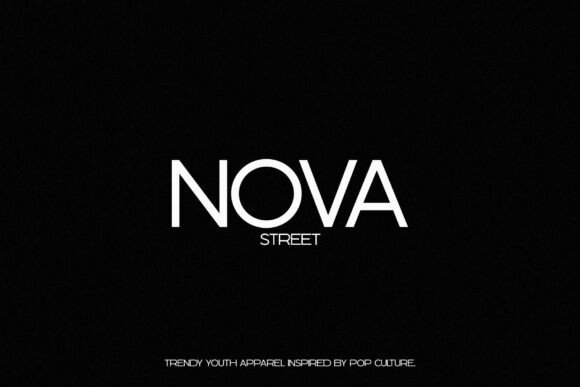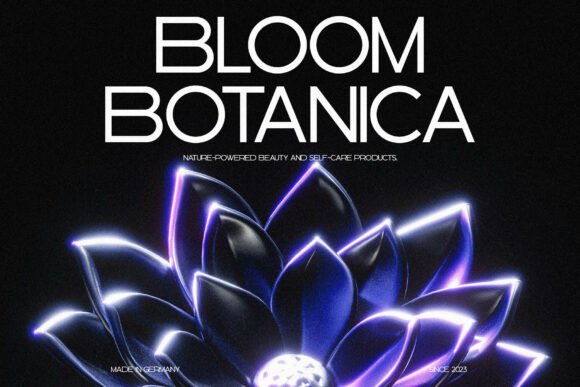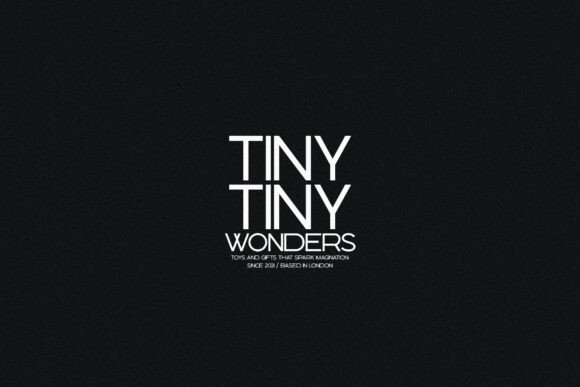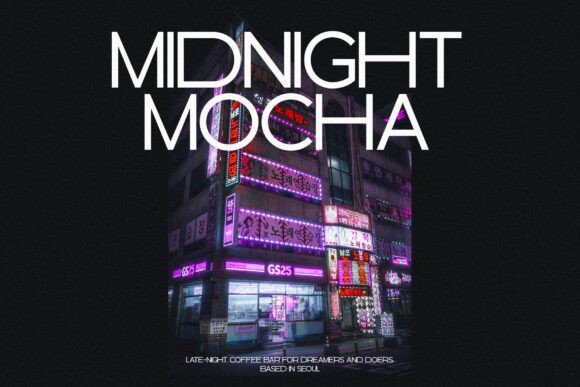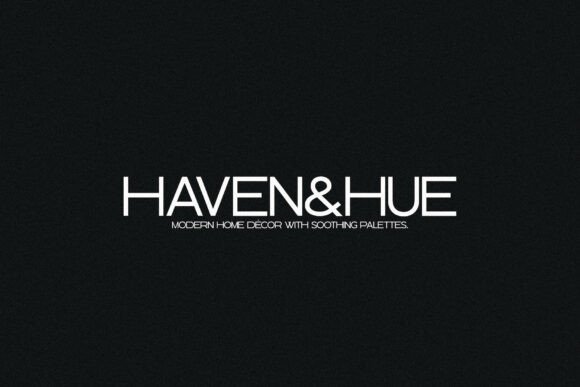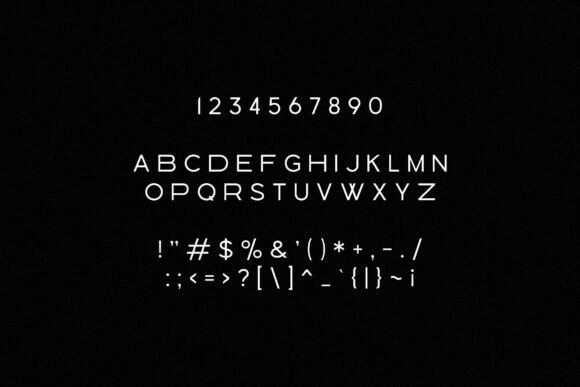
I still remember the frustration of working on a project, hours spent perfecting every detail, only to be stumped by one thing: finding the right font. My client wanted something modern, elegant, and versatile – a font that would elevate their brand without overpowering it. I scoured the internet, tried out countless fonts, but none seemed to fit the bill. That was until I stumbled upon Carbide, a game-changing sans-serif font that has since become a staple in my design toolkit.
What is Carbide?
Carbide is a modern and simple sans-serif font that combines clean geometry with subtle elegance. Designed for versatility, it maintains a refined balance between minimalism and readability, making it ideal for branding, editorial design, logos, and digital interfaces. Its smooth curves and precise letterforms give every project a contemporary, confident look while keeping the focus on clarity and visual harmony.
My Honest Review of Carbide
• ✅ Clean and elegant design: Carbide’s geometric shapes and smooth curves make it perfect for projects that require a modern and sophisticated look.
• ✅ Highly versatile: Whether used for bold headlines or clean body text, Carbide delivers a professional and timeless aesthetic.
• ✅ Excellent readability: The font’s precise letterforms and balanced design make it easy to read, even at small sizes.
• 🤔 Limited character set: While Carbide has a wide range of characters, it may not have every special character or glyph you need.
• 🤔 Not ideal for body text: While Carbide is great for headlines and titles, it may not be the best choice for long blocks of body text.
The Story Behind Carbide
Carbide was designed with the goal of creating a modern and elegant sans-serif font that would meet the needs of designers and creatives. The design process involved a deep exploration of geometric shapes and smooth curves, resulting in a font that is both refined and approachable.
Q: What is Carbide?
A: Carbide is a modern and simple sans-serif font designed for versatility and elegance.
Q: What is Carbide used for?
A: Carbide is ideal for branding, editorial design, logos, and digital interfaces.
Q: Is Carbide available in different weights and styles?
A: Yes, Carbide comes in a range of weights and styles, making it versatile and adaptable to different design needs.